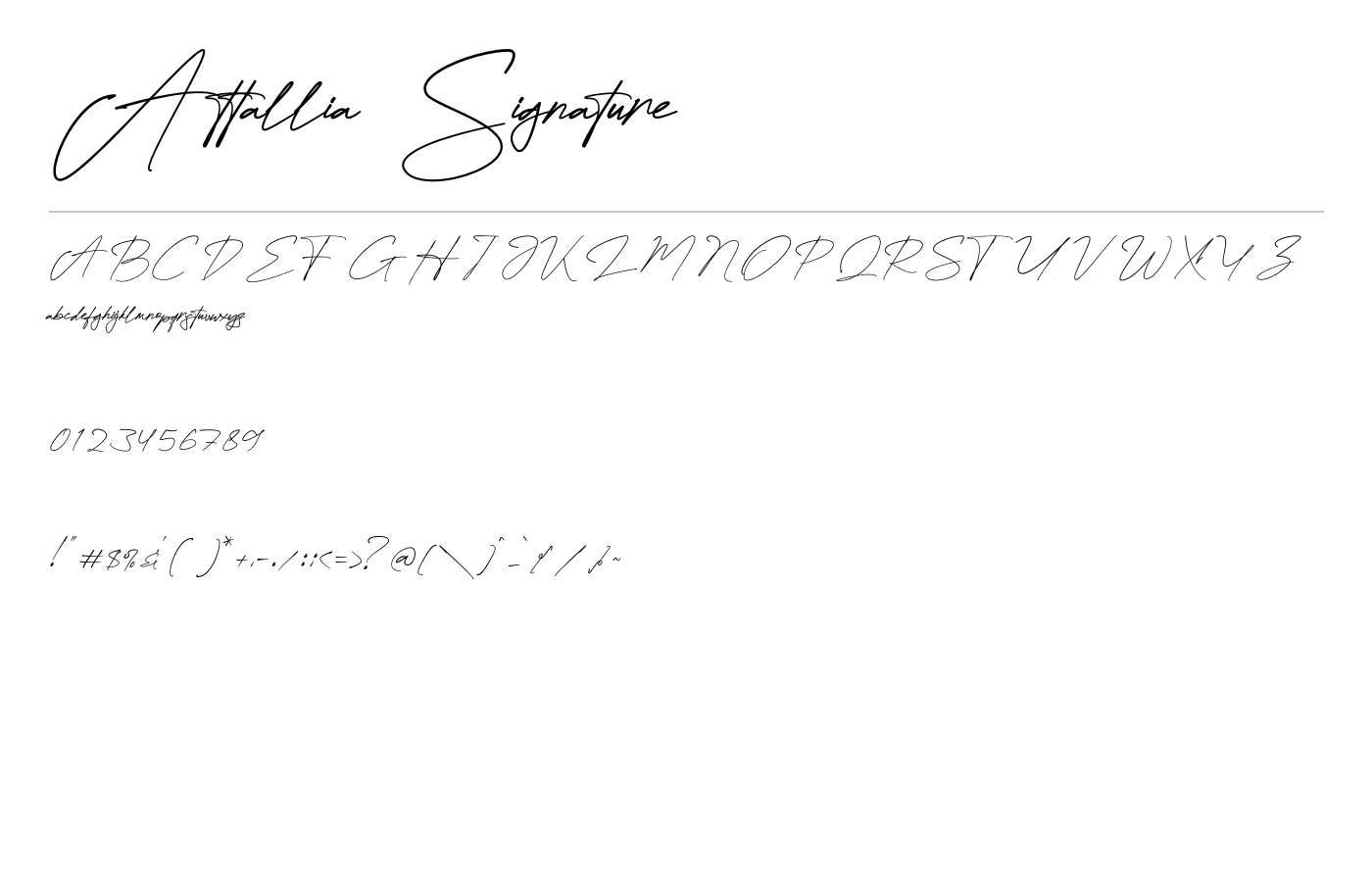
Attallia Signature Font is a delicate, elegant script with a natural, handwritten feel, resembling a personal signature. Its fine, flowing strokes and slightly irregular character shapes convey a sense of sophistication and intimacy, making it perfect for branding, invitations, and stylish editorial design. This font works well wherever a graceful, authentic touch is desired, especially in fashion, luxury, and creative projects.
Attallia Signature Font
About Attallia Signature Font
| Font family | Attallia Signature Font |
| Designer | FinTypeStudio |